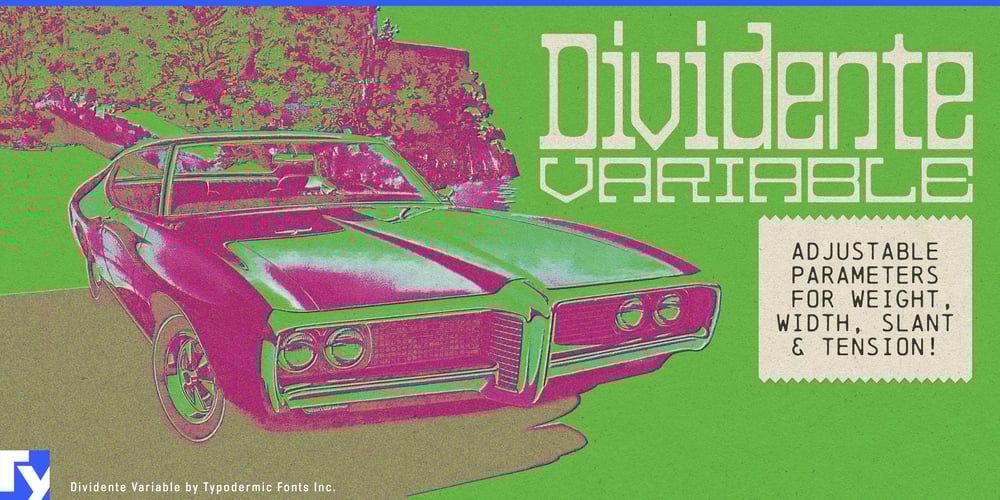
Dividente Variable
Dividente Variable font
Dividente Variable Font Family was designed by Ray Larabie and published by Typodermic. Dividente Variable contains 1 styles and family package options. Dividente Variable is a bold reimagining of mid-century typography, blending retro aesthetics with cutting-edge flexibility. Rooted in the vintage, late-1960s spirit of its predecessor, Dividente Variable merges geometric precision with luxurious, organic curves to create a typeface that’s both nostalgic and undeniably modern. Now, with the power of variable font technology, Dividente Variable puts complete control at your fingertips, giving you a level of creative freedom that traditional fonts can’t match.At its core, Dividente Variable retains the essence of the original Dividente: rectangular exteriors softened by subtly rounded corners, paired with inner curves shaped by superelliptical tension. The result is a striking interplay of rigid geometry and flowing curves, delivering a personality that’s both structured and playful. The ultra-tight default spacing evokes vintage headlines, while its warm, organic forms steer clear of the cold, mechanical feel of many geometric typefaces. Dividente Variable captures the psychedelic innovation of the late ’60s and blends it with the smooth, polyester-fueled luxury of the early ’70s, making it the perfect choice for designs that demand style and impact.With four variable axes—weight, width, slant, and tension—Dividente Variable amplifies its versatility.The weight axis offers a level of precision that goes beyond the traditional static font. Start at the razor-thin elegance of an ultra-fine hairline weight or dial it up to the husky confidence of Black. Unlike traditional weights, you’re not limited to presets; you can fine-tune the weight to perfectly fit your design, delivering a balance that feels just right for your headline or layout.The width axis lets you customize proportions to extremes. From ultra-condensed forms for tight spaces to ultra-expanded widths for dramatic, sprawling headlines, Dividente Variable adapts effortlessly to any context. This versatility makes it ideal for everything from compact poster designs to bold, full-page layouts that demand attention.The slant axis adds dynamism and sophistication. While the original Dividente features a refined 11.3° slant, Dividente Variable lets you push further—up to 15°—or anywhere in between. This flexibility gives you the power to inject just the right amount of motion or emphasis into your designs.The tension axis is where Dividente Variable truly shines. At the default setting of 50, the typeface retains its signature superelliptical curves, perfectly balancing geometry and softness. Lower the tension for a more rounded, organic look, or push it to the extremes for experimental results. Crank it up to 100, and the curves become so intense that the corners nearly square off, creating a rigid, edgy aesthetic. Dialing the tension down to its lowest settings introduces an unconventional, almost playful roundness, making it a powerful tool for exploring new creative directions.Dividente Variable doesn’t just offer unparalleled control—it preserves and enhances everything that makes Dividente special. Its unique interplay of rigid boxiness and organic curves gives every message a distinctive voice. Whether you’re creating psychedelic album covers, sleek luxury branding, or vibrant poster art, Dividente Variable ensures your typography exudes style, personality, and impact. Supporting most Latin-based languages and a comprehensive range of currency symbols, it’s as functional as it is expressive.With its retro-inspired forms and state-of-the-art flexibility, Dividente Variable isn’t just a font—it’s a creative tool that invites you to experiment, customize, and innovate. Whether you’re working in print or digital, designing bold headlines or nuanced layouts, Dividente Variable delivers a visual punch that’s impossible to ignore. It’s time to take control of your typography and let your creativity run free.